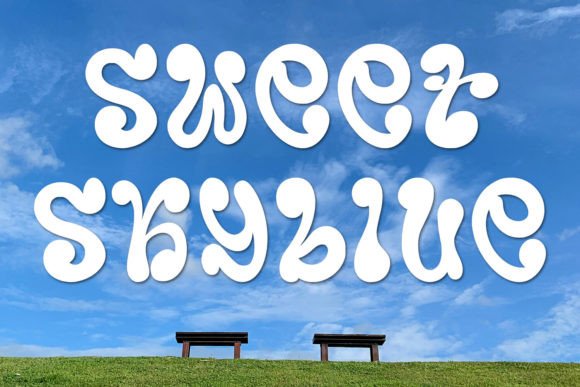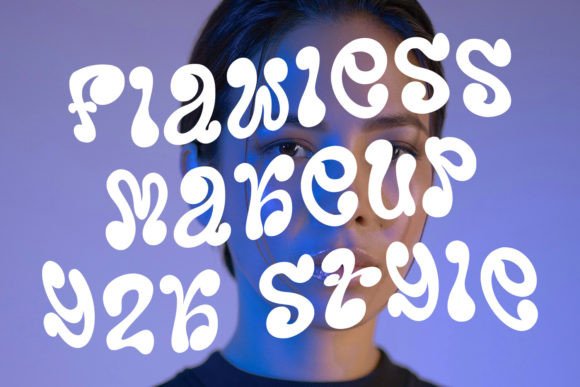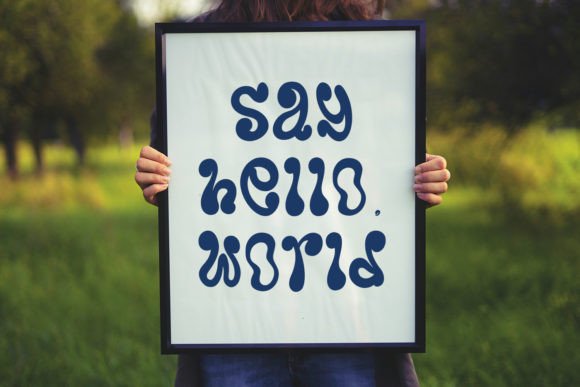
Introduction to Pilliarl Font
Have you ever found yourself in a creative rut, staring blankly at a blank canvas or screen, desperately seeking that one perfect font to bring your whimsical design to life? That’s where Pilliarl Font comes in – a playful and fun slime display font that’s sure to add a touch of magic to your next creative project.
With its unique blob shapes for each letter, Pilliarl Font is a high-quality design resource that’s perfect for designers looking to add a dash of personality to their work. Whether you’re working on a project with a transparent background or need a font that’s easy to customize, Pilliarl Font is a free download that’s sure to become a go-to favorite.
Key Features of Pilliarl Font
- High-quality, professional font designed for creative projects
- Unique, elegant design with a touch of sophistication, perfect for corporate and creative projects
Honest Review: Pilliarl Font
I recently stumbled upon the Pilliarl Font, and I must say it’s a great addition to my design resource collection. I was impressed by the high quality of this font, which makes it perfect for a wide range of creative projects.
One of the standout features of the Pilliarl Font is its versatility. It’s available for free download, making it an excellent option for designers on a budget. Additionally, the transparent background makes it easy to use with various backgrounds and images.
- High quality and professional look ✨
- Perfect for creative projects, such as graphics, logos, and more ✨
- May not be suitable for formal or corporate projects due to its creative nature ⚠️
Overall, I’m quite impressed with the Pilliarl Font. It’s a great design resource for anyone looking for a high-quality, free font for their creative projects. I’d definitely recommend giving it a try!
Pilliarl Font: A Comprehensive Guide
The Pilliarl Font is a versatile and high-quality design resource perfect for creative projects that require a unique and elegant touch. With its transparent background, this font is highly customizable and can be used in various design applications.
Using the Pilliarl Font in Design Applications
To maximize the potential of the Pilliarl Font, experiment with different font sizes, colors, and styles. You can also combine the font with other design elements to create a unique and eye-catching visual identity.
The Pilliarl Font is perfect for:
- Brand logos and identity design